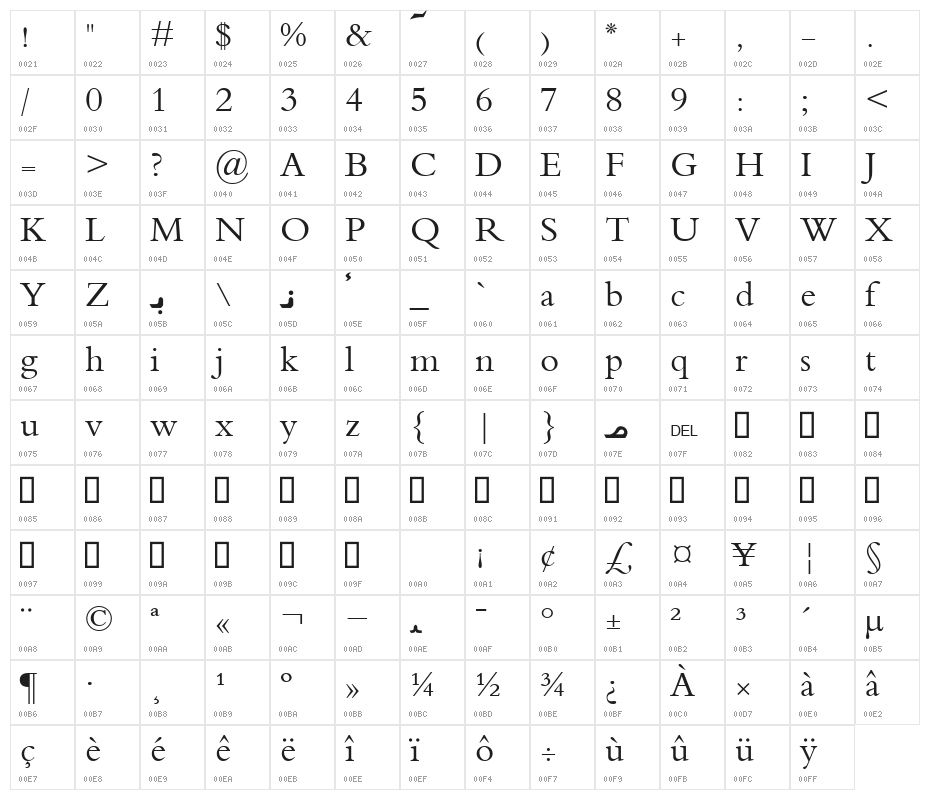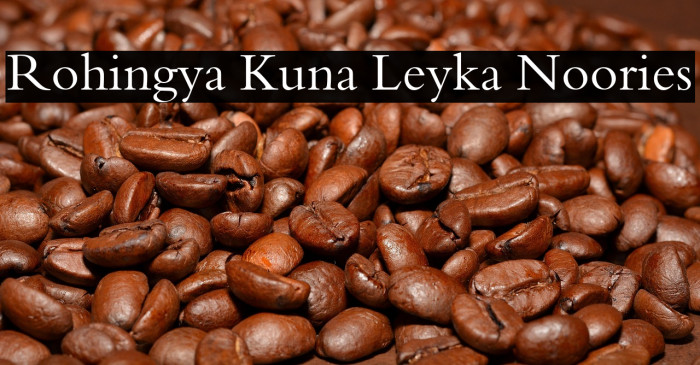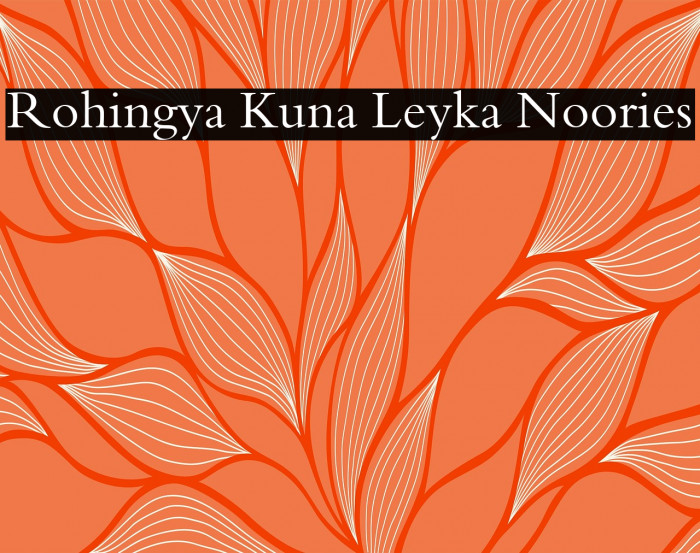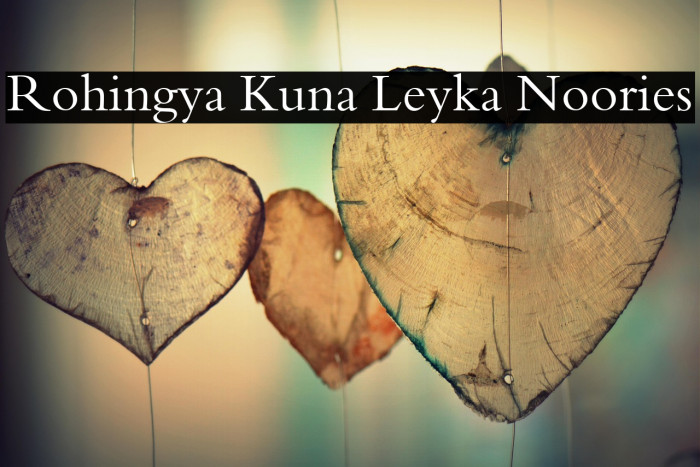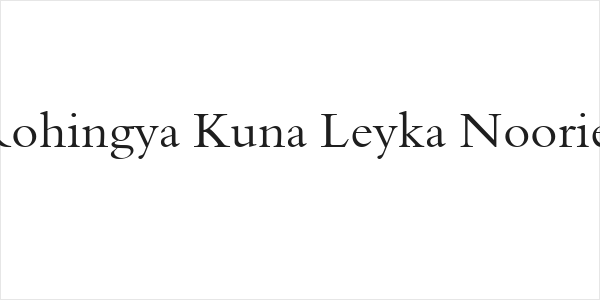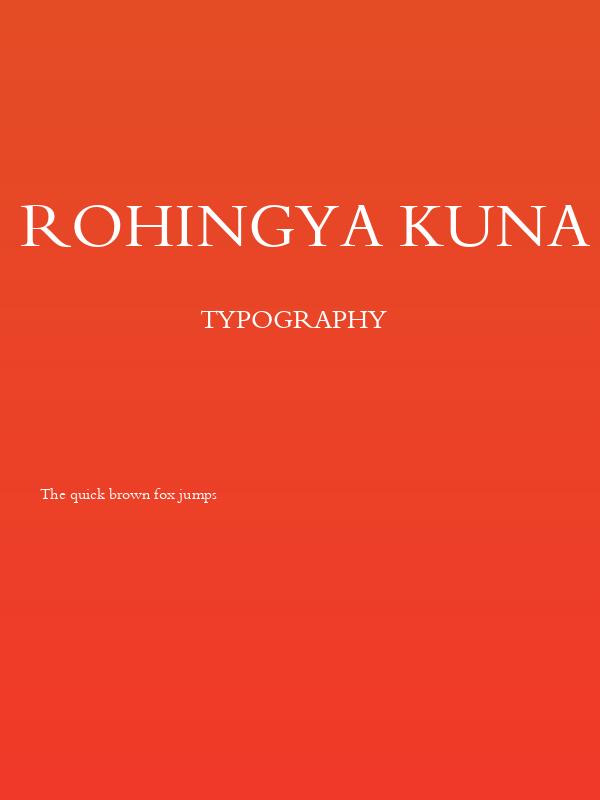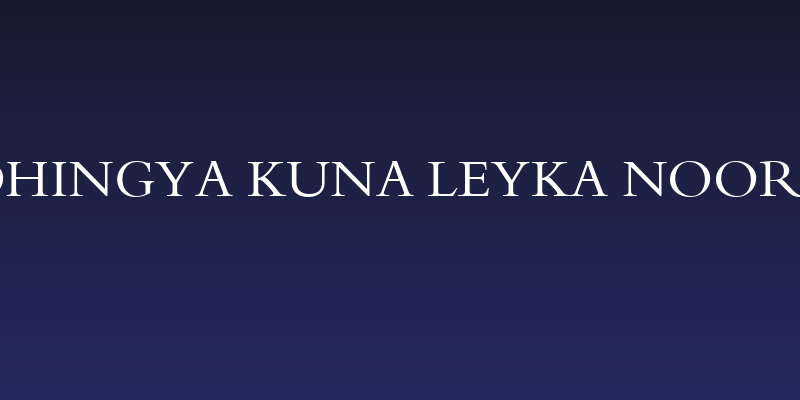
Rohingya Kuna Leyka Noories Font
Rohingya Kuna Leyka Noories Description
This font features a classic serif style with elegant, sharp serifs and a balanced proportion between thick and thin strokes. The uppercase letters are bold and commanding, while the lowercase letters maintain a graceful and readable form. The numerals are consistent with the overall design, offering clarity and sophistication. Special characters are well-integrated, maintaining the font's cohesive aesthetic. The overall appearance is timeless and versatile, suitable for a variety of design needs.